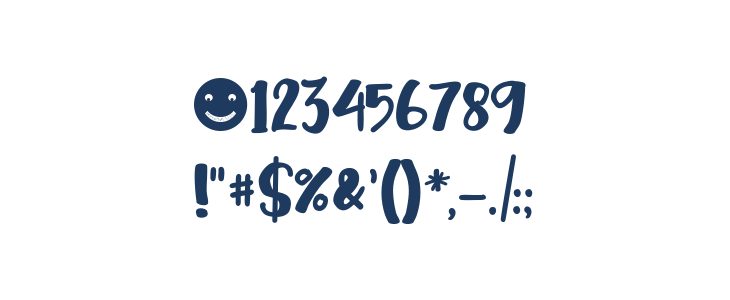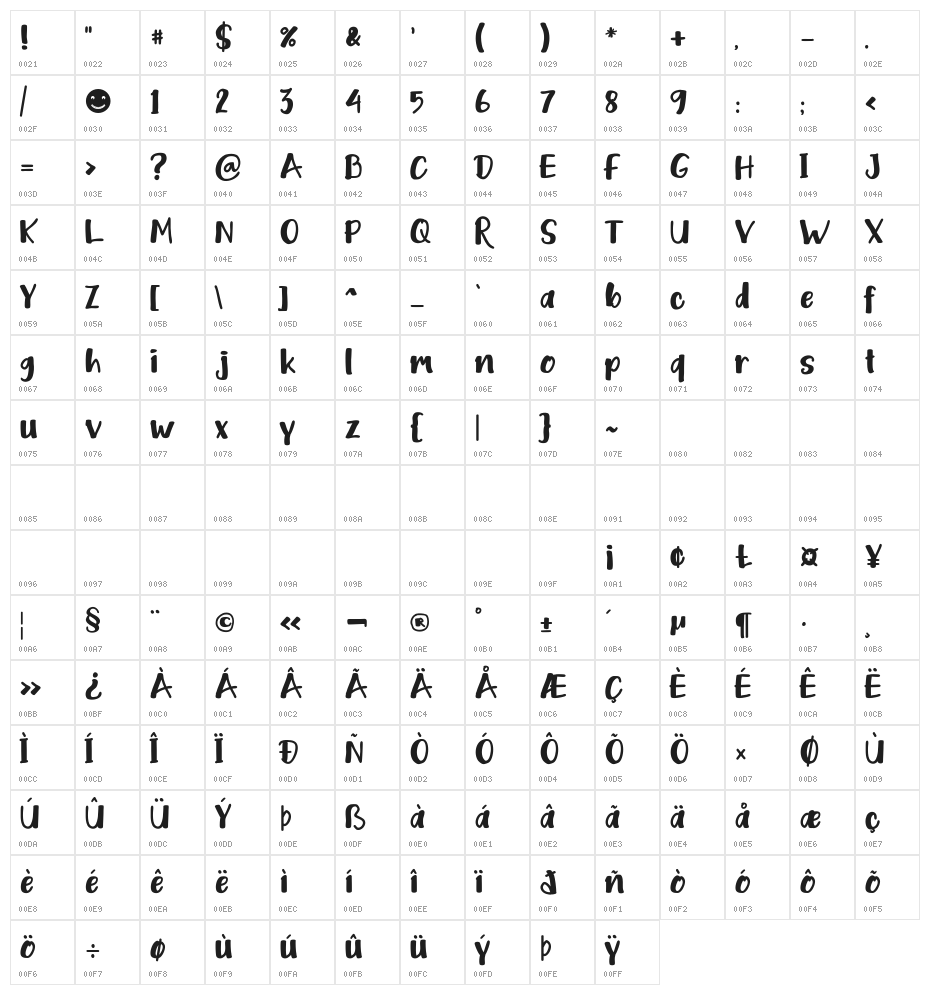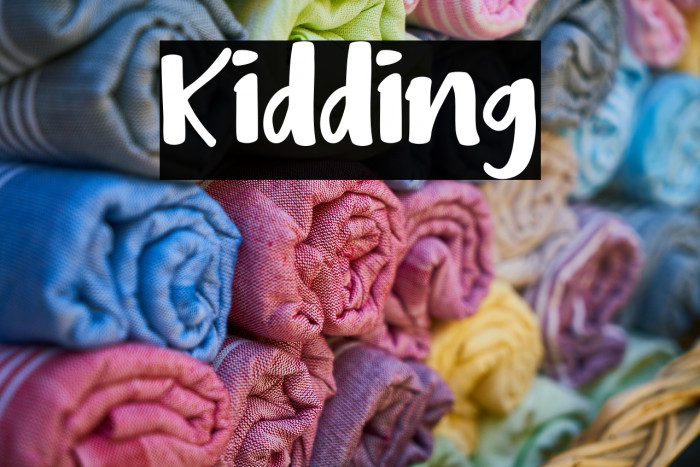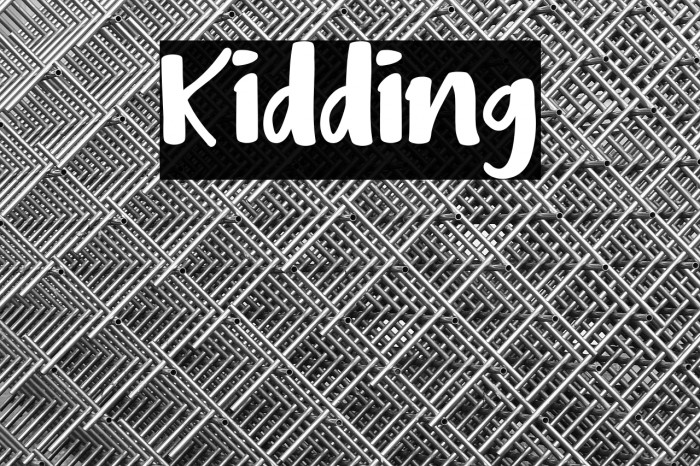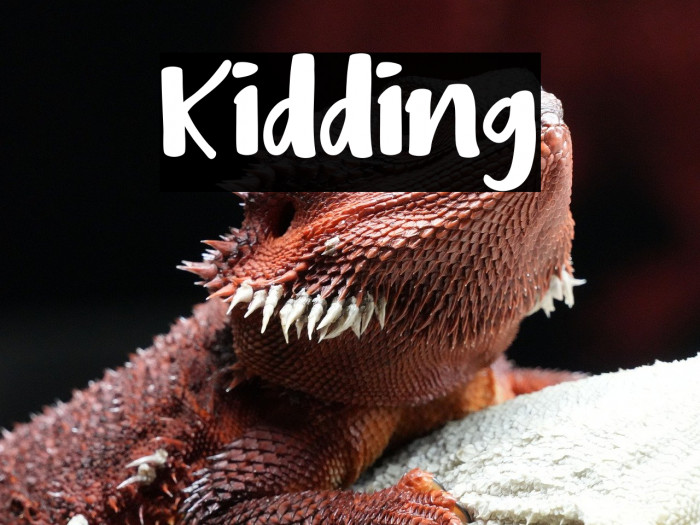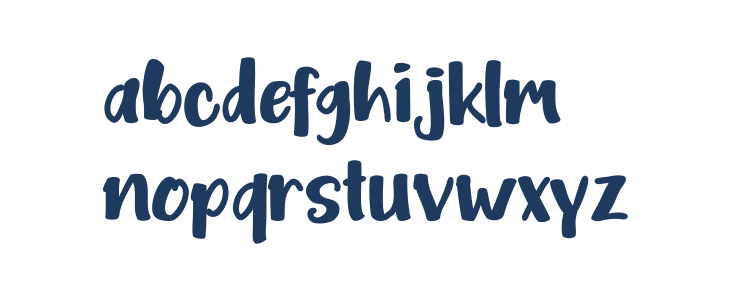
Kidding Font
Kidding Description
This playful and bold font features a handwritten style with a lively and energetic appearance. The letters are characterized by their thick strokes and slightly irregular shapes, giving them a whimsical and informal feel. The uppercase and lowercase letters maintain a consistent style, with rounded edges and a sense of movement. The numbers and special characters follow the same playful design, making the font suitable for creative and fun projects. Its boldness ensures high readability, while the unique character shapes add a touch of personality and charm.
| Proposed Projects | Ideal for children's books, playful branding, greeting cards, and creative posters. |